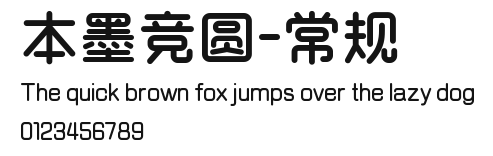
• Font Name: 本墨竞圆-常规
• Full Font Name: 本墨竞圆-常规
About 本墨竞圆-常规.ttf
本墨竞圆-常规.ttf is a modern, elegant sans-serif font designed for ultimate readability and visual harmony. Perfect for branding, headlines, web design, and print materials.